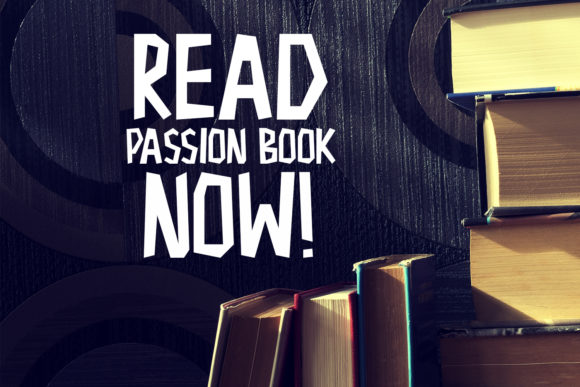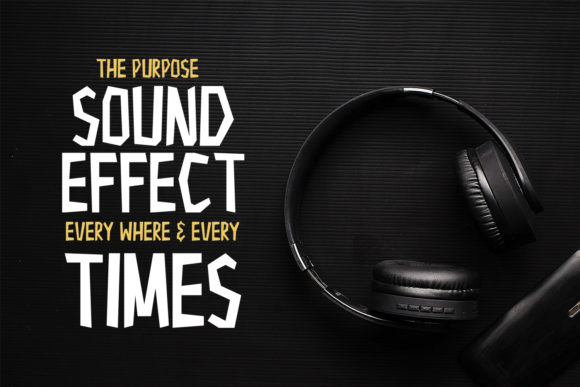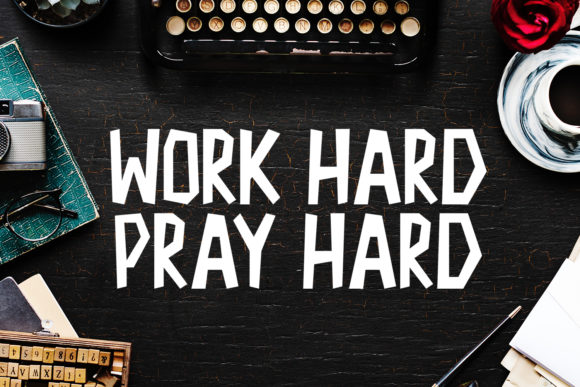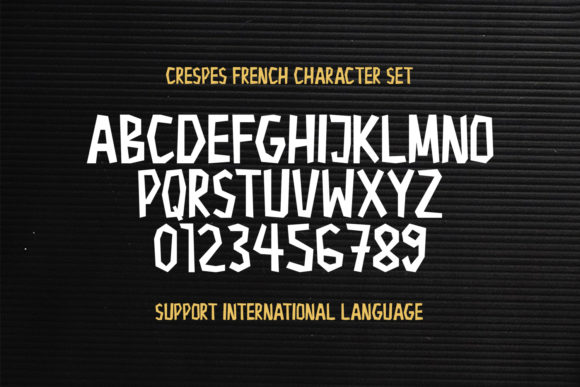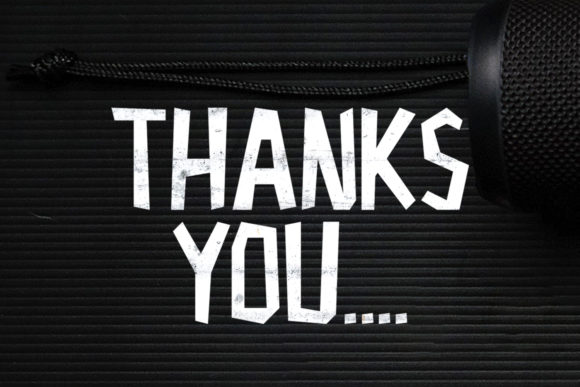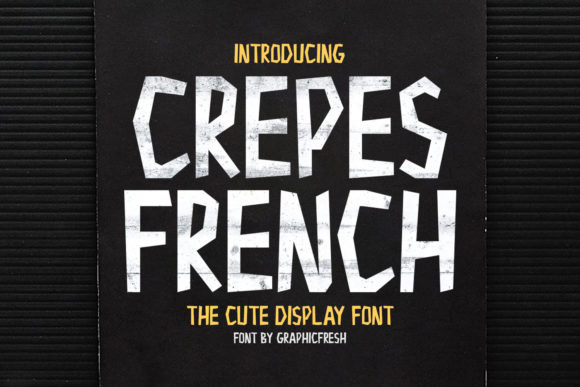
Introducing Crepes Font: A Fun Display Font with Cool Ink Strokes
Are you tired of using the same old fonts for your design projects? Look no further than Crepes Font, a fun and playful display font that’s sure to add a touch of personality to your creations. In this article, we’ll take a closer look at Crepes Font, its features, and how it can be used to elevate your designs.
What is Crepes Font?
Crepes Font is a modern display font that’s perfect for designers and crafters looking for a unique and eye-catching way to add text to their projects. As described, “Crepes is a fun display font that features cool ink strokes,” which gives it a distinctive and artistic feel. The font’s design is inspired by the imperfect, hand-crafted look of ink-stained letters, making it perfect for projects that require a personal touch.
Key Features of Crepes Font
• Fun and Playful Design: Crepes Font features a fun and playful design that’s perfect for adding a touch of whimsy to your projects.
• Cool Ink Strokes: The font’s cool ink strokes give it a unique and artistic feel that’s sure to make your designs stand out.
• Display Font: Crepes Font is a display font, making it perfect for headlines, titles, and other large text elements.
• Easy to Read: Despite its artistic design, Crepes Font is easy to read, making it perfect for use in a variety of projects.
How to Use Crepes Font in Your Designs
Crepes Font is a versatile font that can be used in a variety of design projects, including:
• Signs and Posters: Crepes Font is perfect for creating eye-catching signs and posters that require a bold and playful font.
• Branding and Packaging: The font’s unique design makes it perfect for use in branding and packaging projects where you want to add a personal touch.
• Invitations and Cards: Crepes Font is perfect for creating invitations, greeting cards, and other paper crafts that require a touch of whimsy.
• Digital Designs: The font can also be used in digital designs, such as social media graphics, blog posts, and website headers.
Tips for Getting the Most Out of Crepes Font
To get the most out of Crepes Font, here are a few tips to keep in mind:
• Use it as a Display Font: Crepes Font is designed to be used as a display font, so use it for headlines, titles, and other large text elements.
• Experiment with Colors: The font’s ink-stained design looks great in a variety of colors, so don’t be afraid to experiment and find the perfect color for your project.
• Pair it with Other Fonts: Crepes Font can be paired with other fonts to create a unique and visually appealing design.
Crepes Font is a fun and playful display font that’s perfect for designers and crafters looking to add a touch of personality to their projects. With its cool ink strokes and easy-to-read design, it’s perfect for use in a variety of projects, from signs and posters to branding and packaging. Whether you’re a seasoned designer or just starting out, Crepes Font is a great addition to your font library.